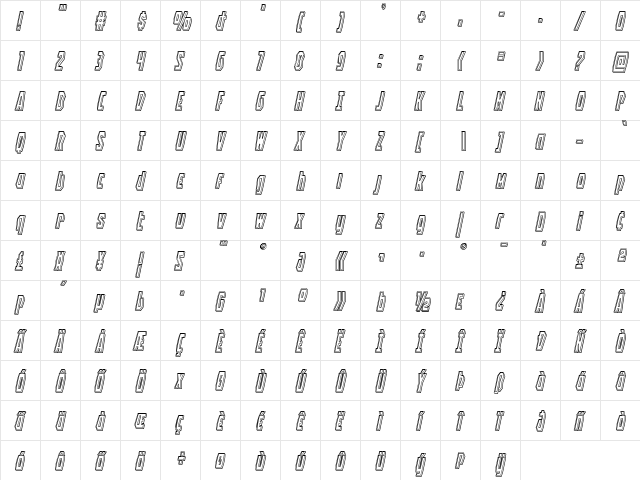
Battleworld Engraved Italic Italic
Design Context for Battleworld Engraved Italic Typeface
Battleworld Engraved Italic is built around its visual character rather than neutral utility — its distinctive forms are designed to make an impression at display sizes. The dynamic lean of this cut emphasises speed and emphasis in any layout.
Font Pairing: Pair with a clean neutral sans-serif for body copy to let Battleworld Engraved Italic's character lead without overwhelming the composition.
Pro Tip: Use Battleworld Engraved Italic exclusively at display sizes — it was designed to be seen, not read at length. Let a neutral companion handle body copy.